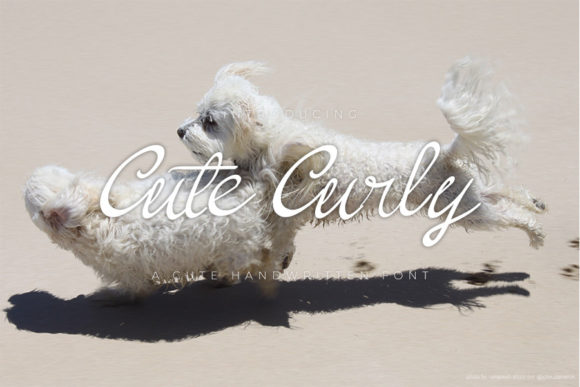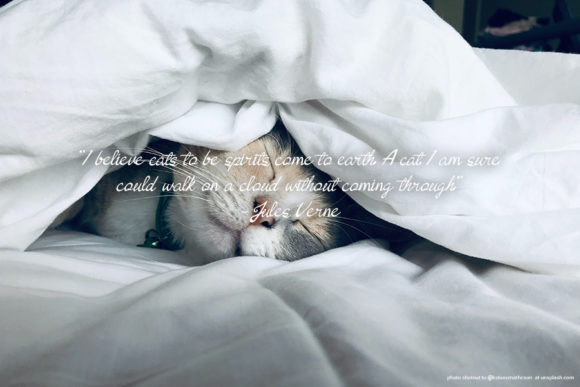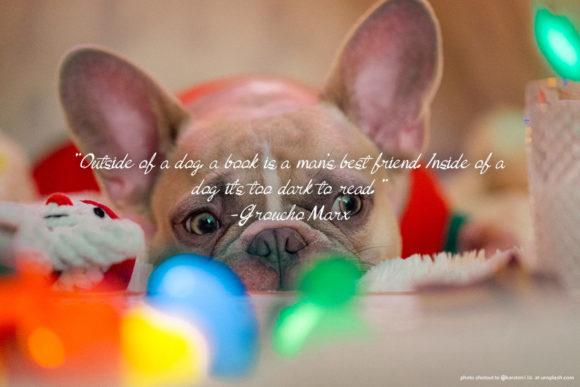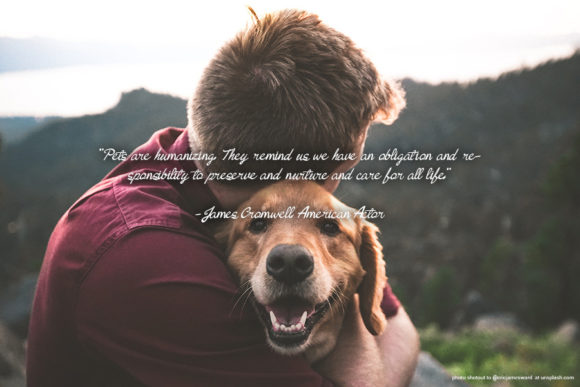
Cute Curly Font
About Cute Curly Font
Cute Curly is a charming handwritten font. Fall in love with its authentic feel and use it to create gorgeous wedding invitations, beautiful stationary art, eye-catching social media posts, and cute greeting cards.